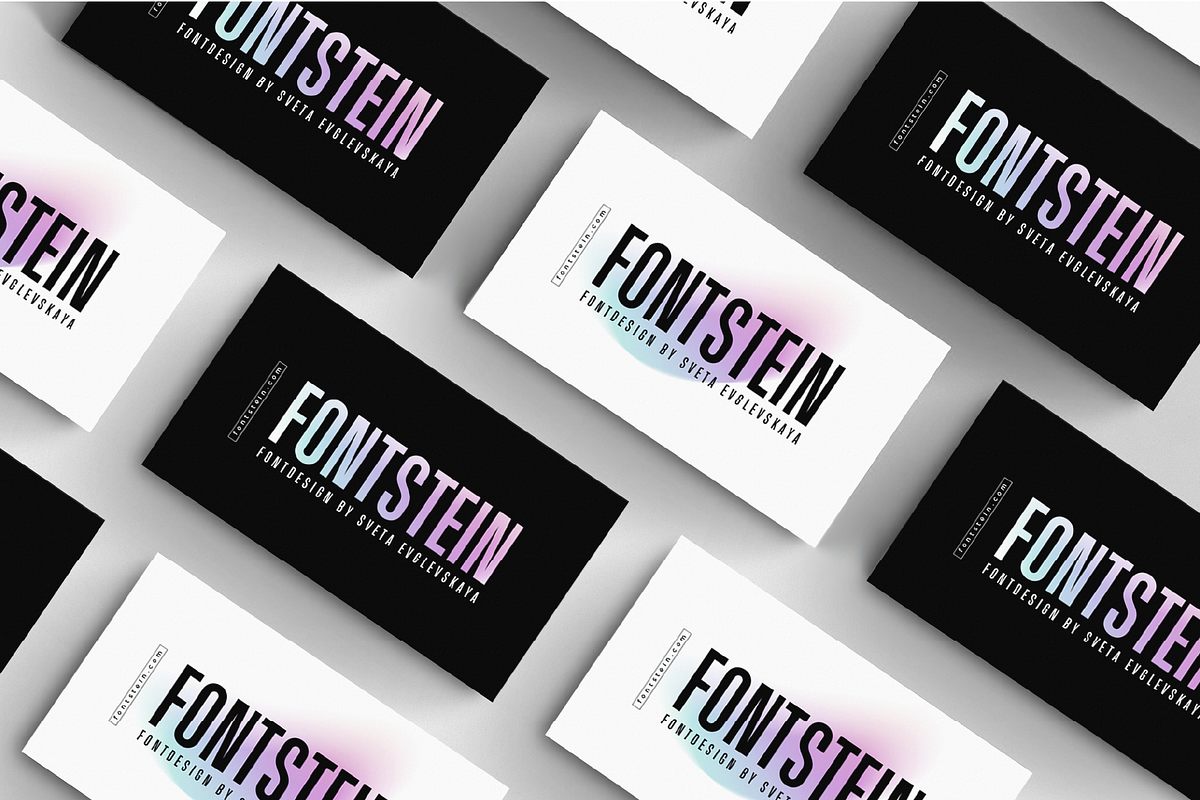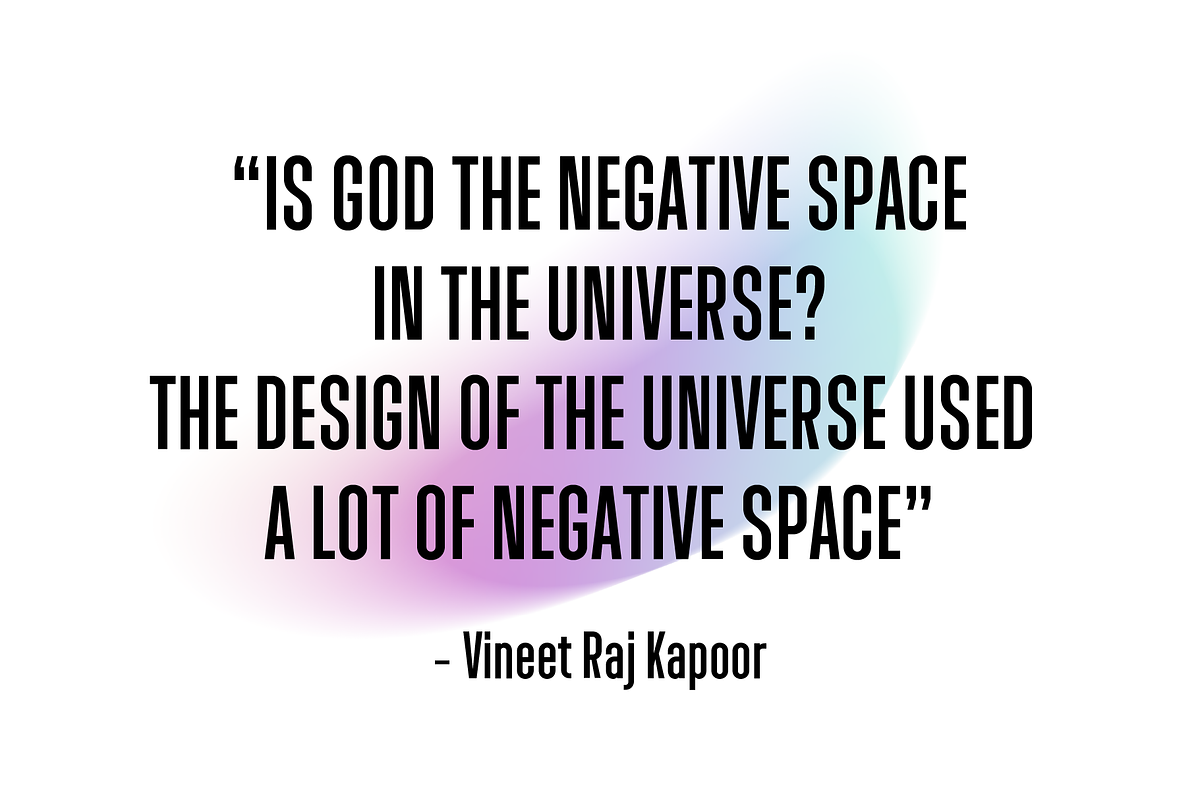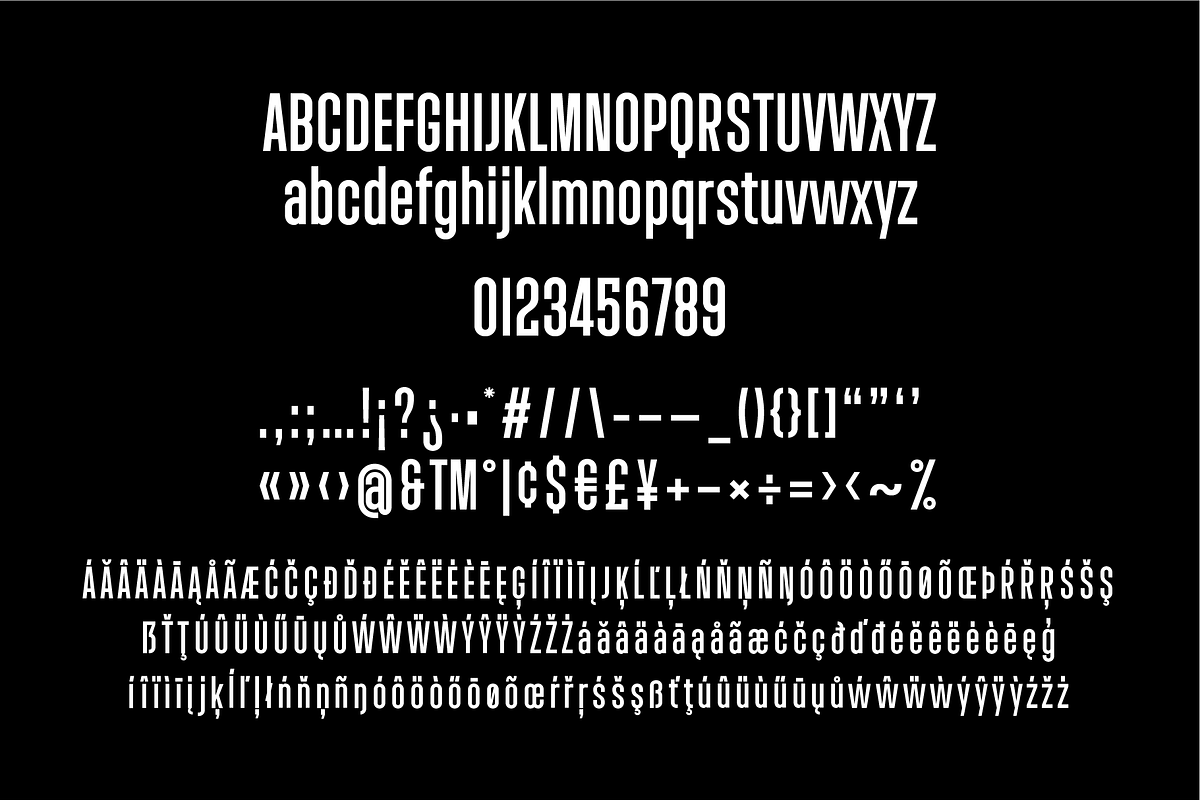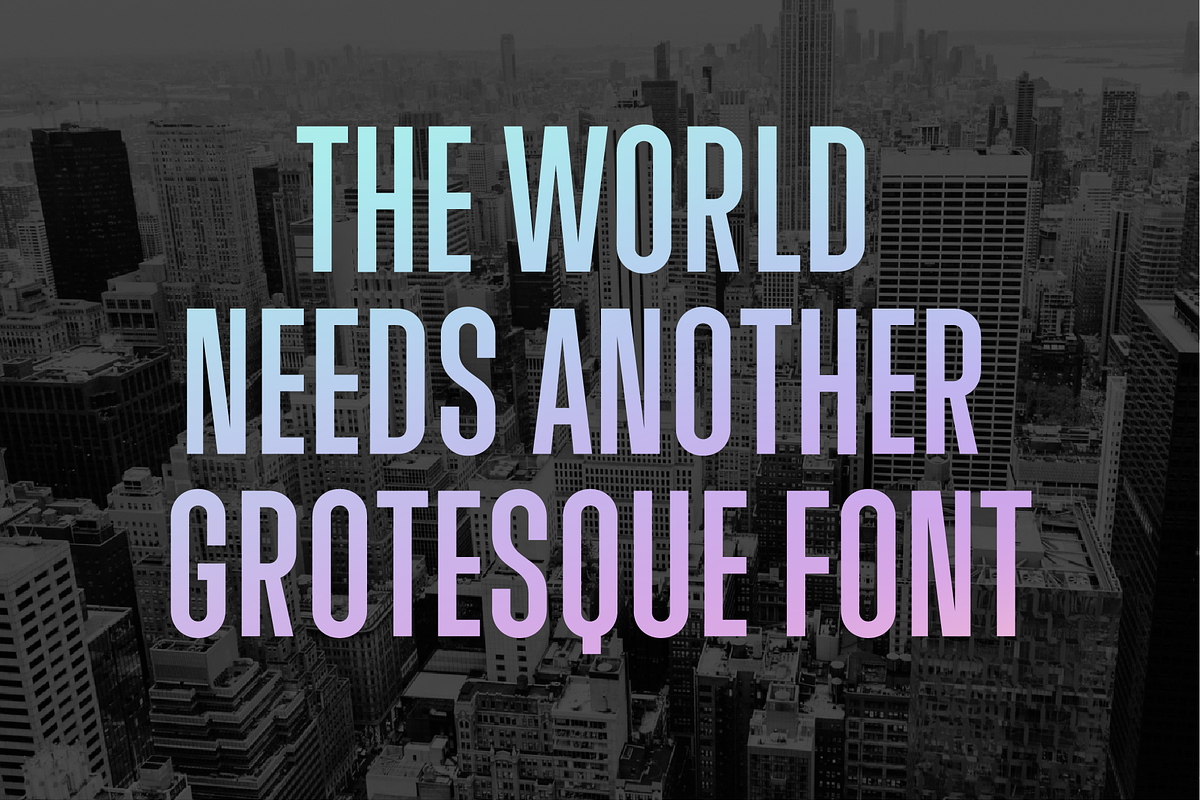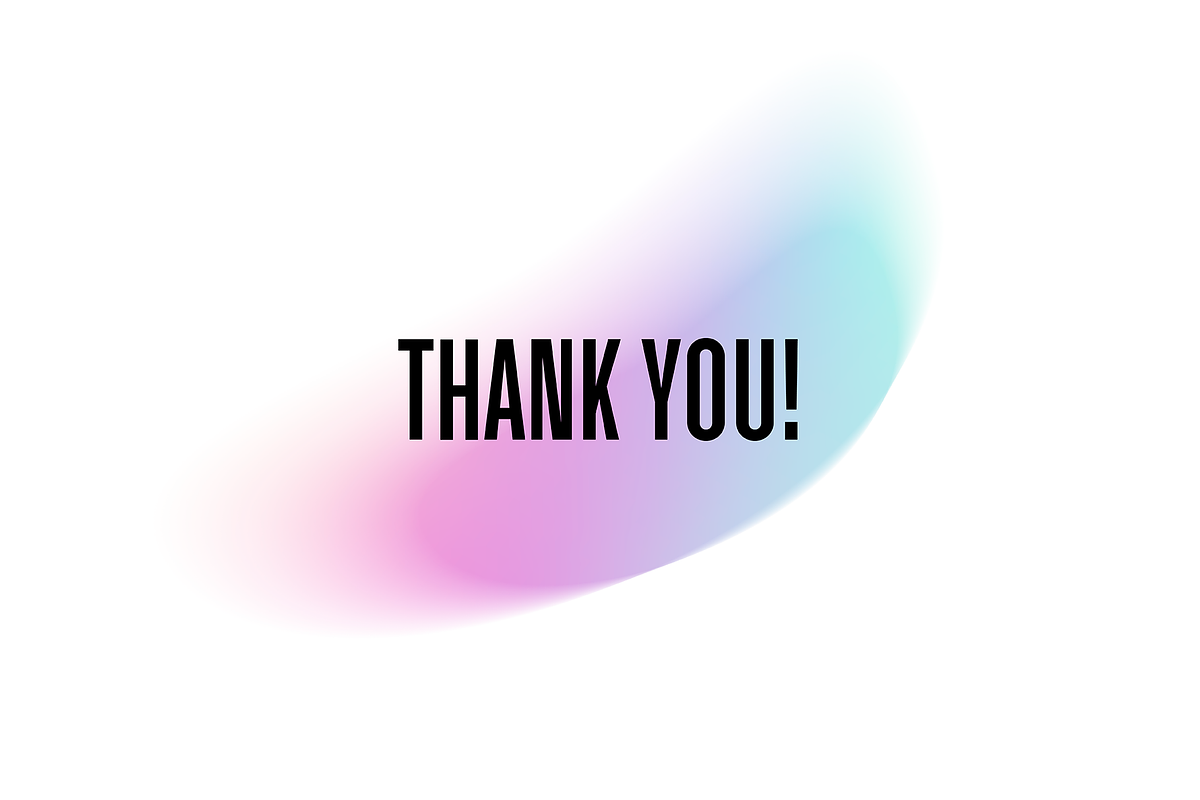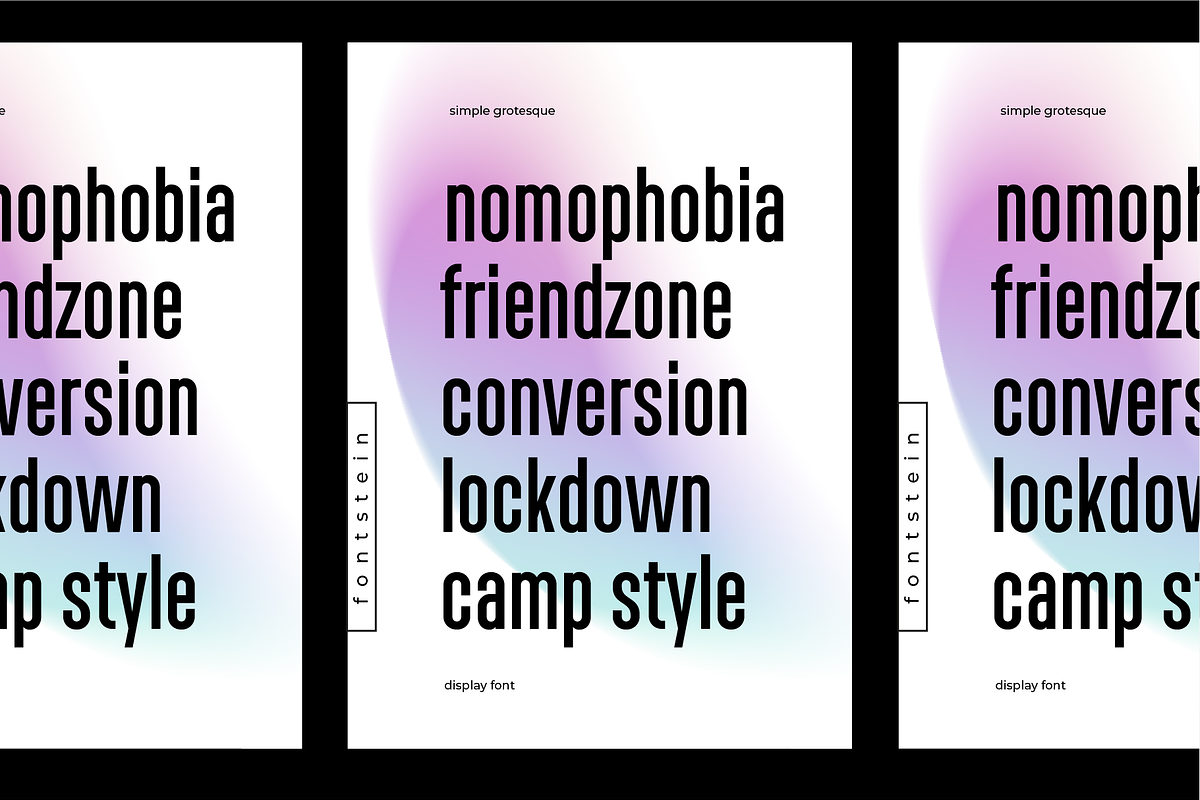
Grotesque is a sans-serif font
Simply Grotesque is an elegant and minimalist sans-serif font designed for those who appreciate a classic and even design. This font is perfect for creative projects where clarity and modernity are essential.
Simply Grotesque's clean and simple design makes it perfect for creating memorable logos and brand identities, ideal for headlines, subheadings, and body text in magazines, newspapers, and books and provides excellent readability and a stylish look on screens of all sizes. It draws attention and emphasizes key messages in posters, banners, and other marketing materials. Discover the versatility and elegance of Simply Grotesque and add it to your collection today; whether you are working on a large corporate project or creating something personal and unique, this font will be a reliable and stylish choice.
- -Multilingual Support: Simply Grotesque includes a wide set of characters supporting multiple languages, making it a versatile tool for inte
Grotesque is a sans-serif font by Fontstein Shop fits naturally into Branding, posters, packaging, typography.